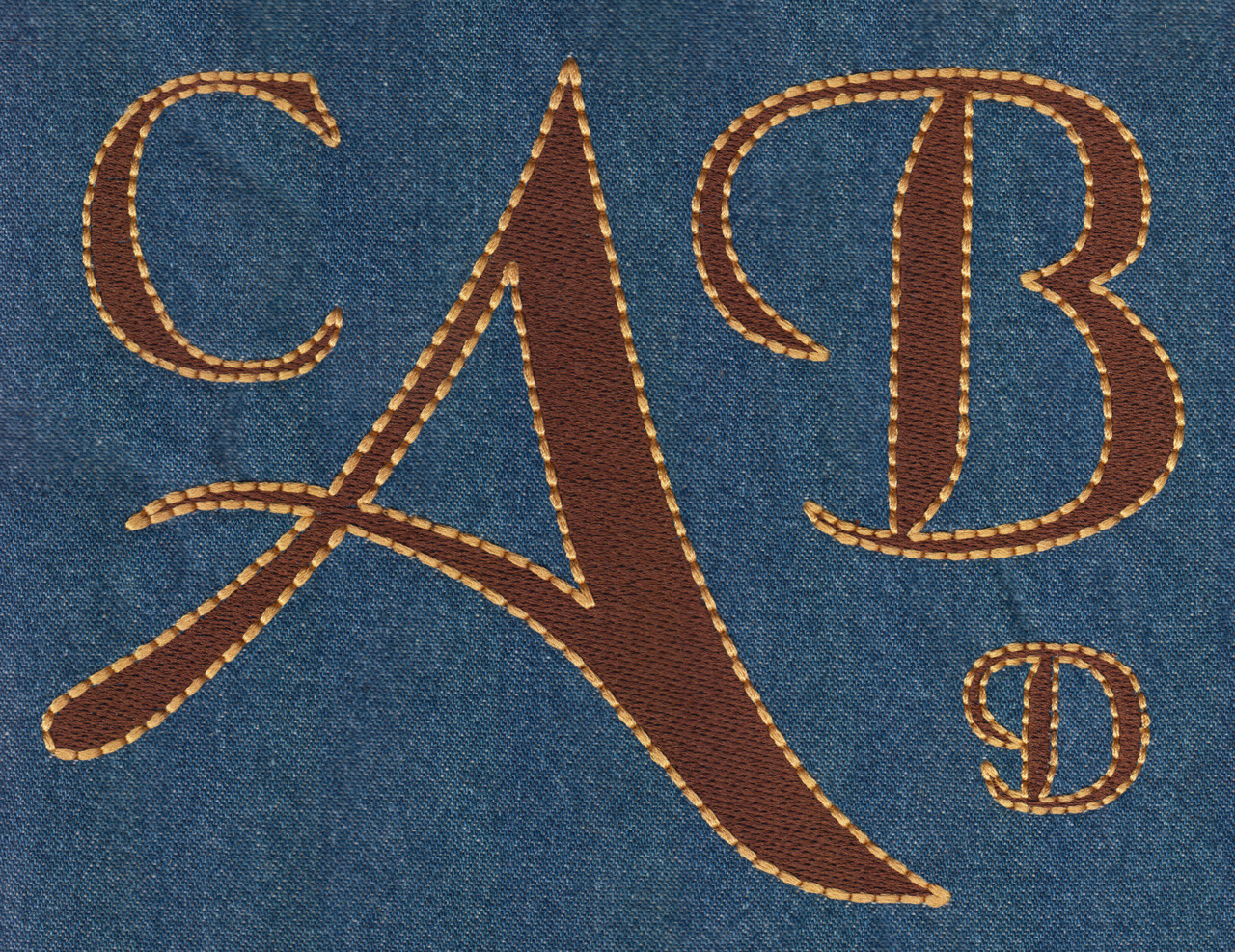
229 Black Chancery Fill & Floss Font
Black Chancery Fill & Floss Font comes in 1", 2", 3", 4" and 5" heights based on the capital "A" with all other characters sized proportionally. Features fill stitch centers with Floss stitch outline in two color setup. Includes uppercase, lowercase, numbers and six punctuations. The revision of this set includes the addition of the Floss stitch outline to replace the original triple stitch outline and also include additional sizes. If you purchased this set prior to the revision date you only need to log into your account and redownload to get the revision.